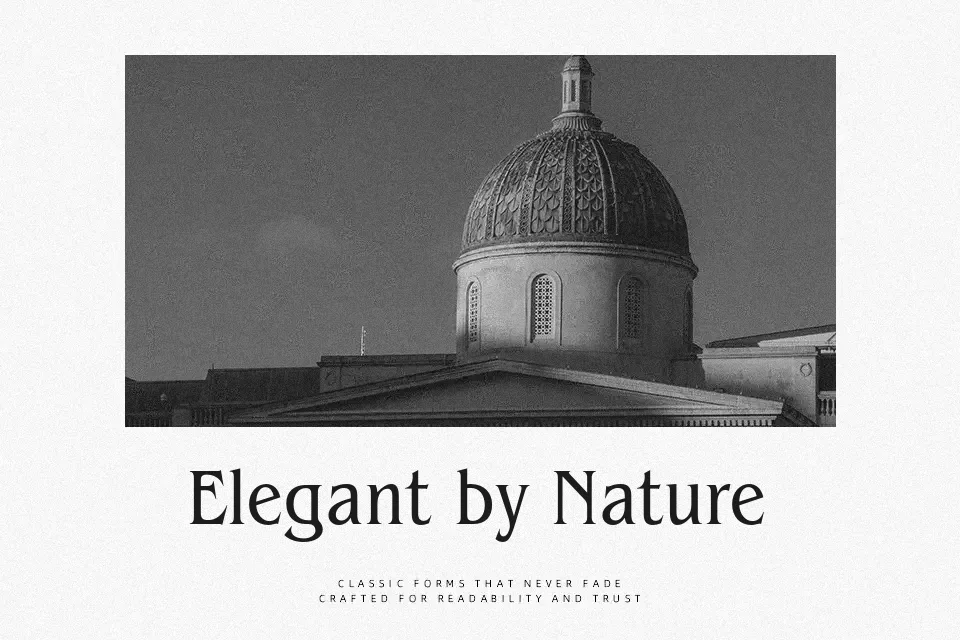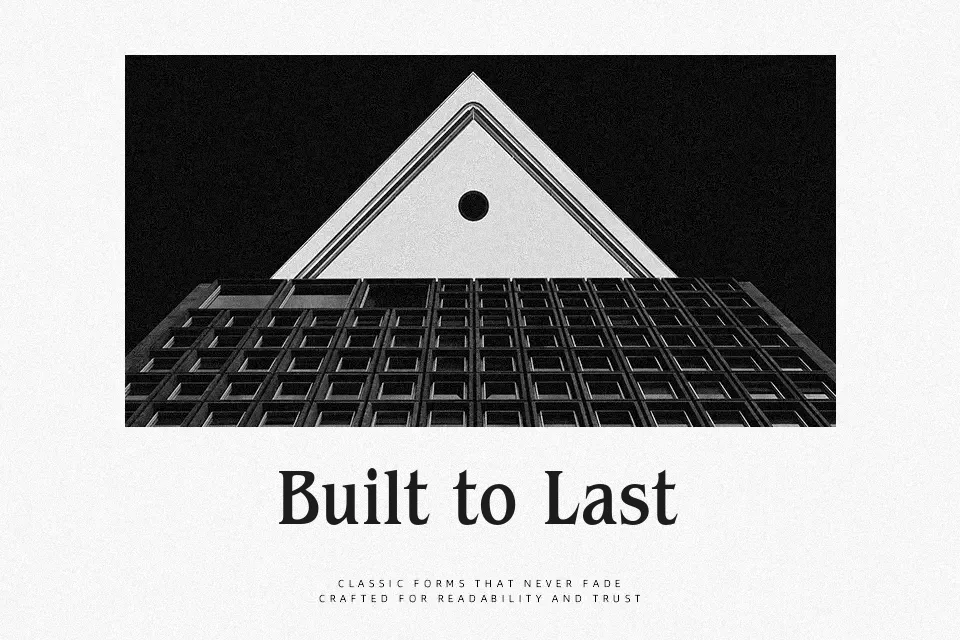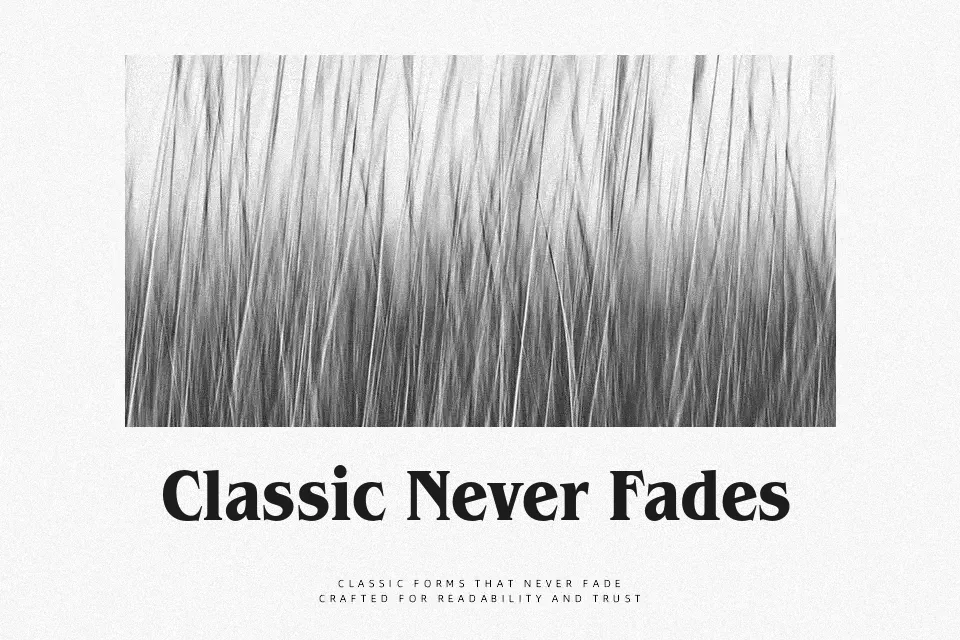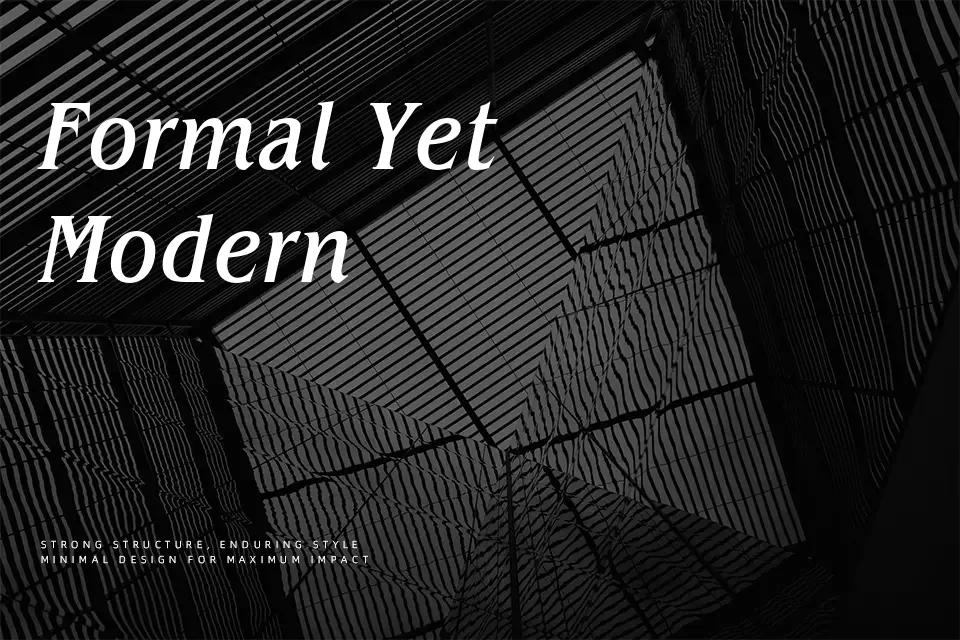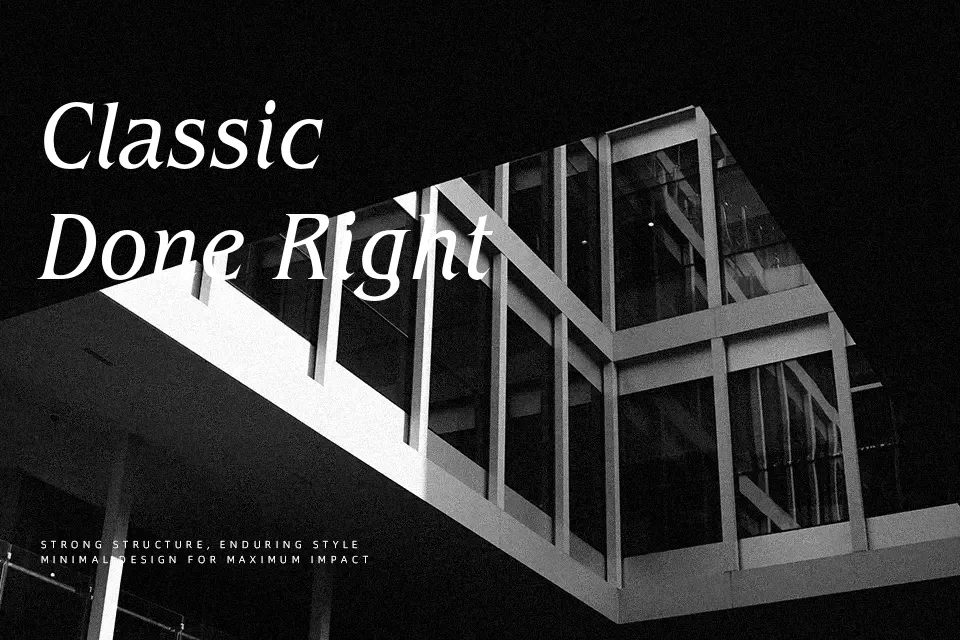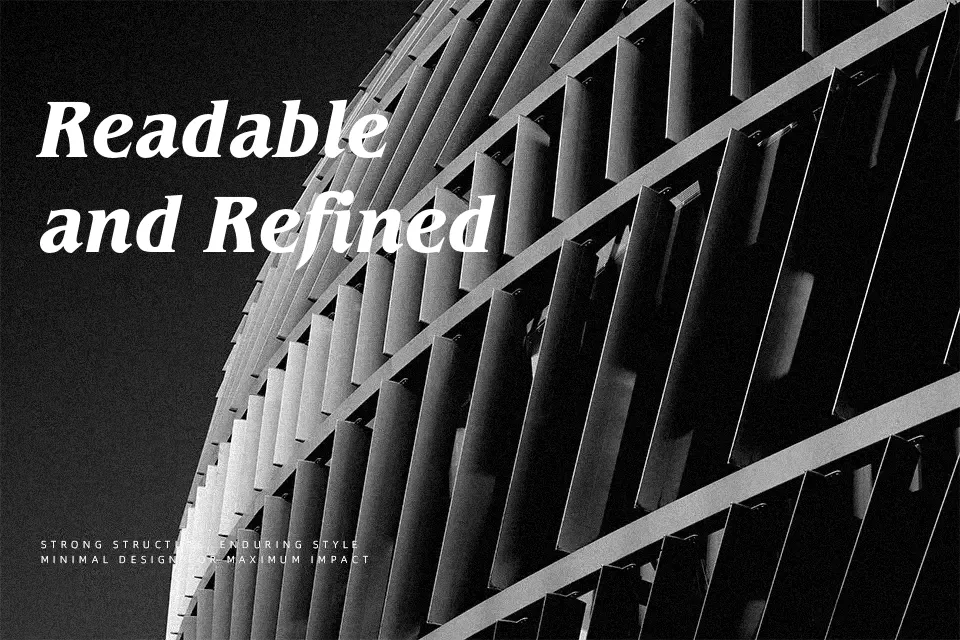
ITC Benguiat Std Font
Evaluating ITC Benguiat reveals a display serif built entirely around character and atmosphere. Ed Benguiat designed the font with a notably large x-height, unusual high-waisted capitals, and quirky, curved crossbars (most noticeably on the ‘A’ and ‘e’). These features give the typeface an undeniable retro, slightly eerie, and highly stylized Art Nouveau quality. Because of its intense visual personality, it performs phenomenally well in title sequences, vintage book covers, and retro-themed branding that requires a nostalgic or mysterious tone. However, the very distinctiveness that makes it a legendary display font completely ruins it for extended reading. Designers must avoid using ITC Benguiat for body paragraphs, editorial text, or UI navigation, as the ornate details quickly become exhausting and hinder message delivery at smaller sizes.
retro thriller book covers
vintage pop-culture branding
cinematic title sequences
atmospheric poster headlines
extended magazine body text
modern mobile app interfaces
minimalist corporate documents
Perfect for advertising, branding, and film, with a artistic and decorative style.